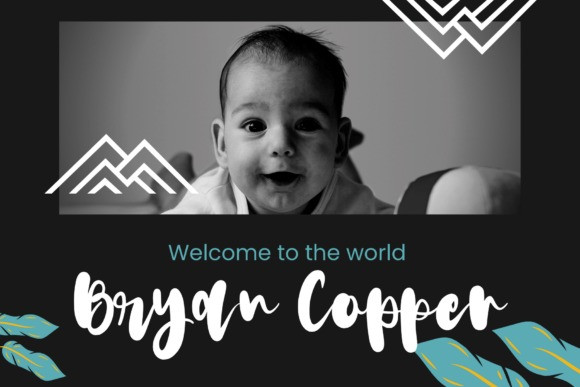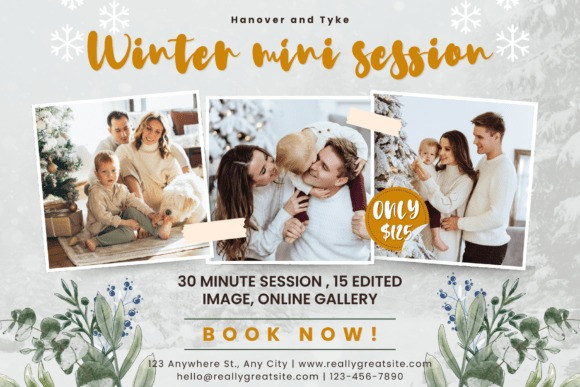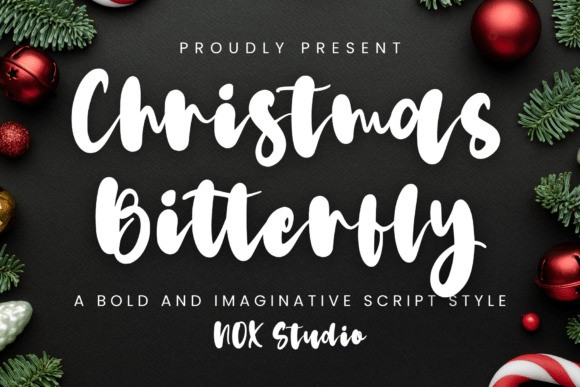
Christmas Bitterfly Font
Christmas Bitterfly Font, a bold handwritten font that radiates festive cheer and heartfelt elegance. Crafted with a touch of whimsy and love, this font is perfect for adding warmth to your creative projects during the holiday season and beyond.
Designed with playful curves and a personal handwritten feel, Christmas Bitterfly comes with a full set of alternates, stylish ligatures, and decorative swashes, giving you endless design possibilities and a custom-made look every time.
Whether you’re creating wedding invitations, Christmas cards, product packaging, logos, or love notes, this font will make every word feel more special.